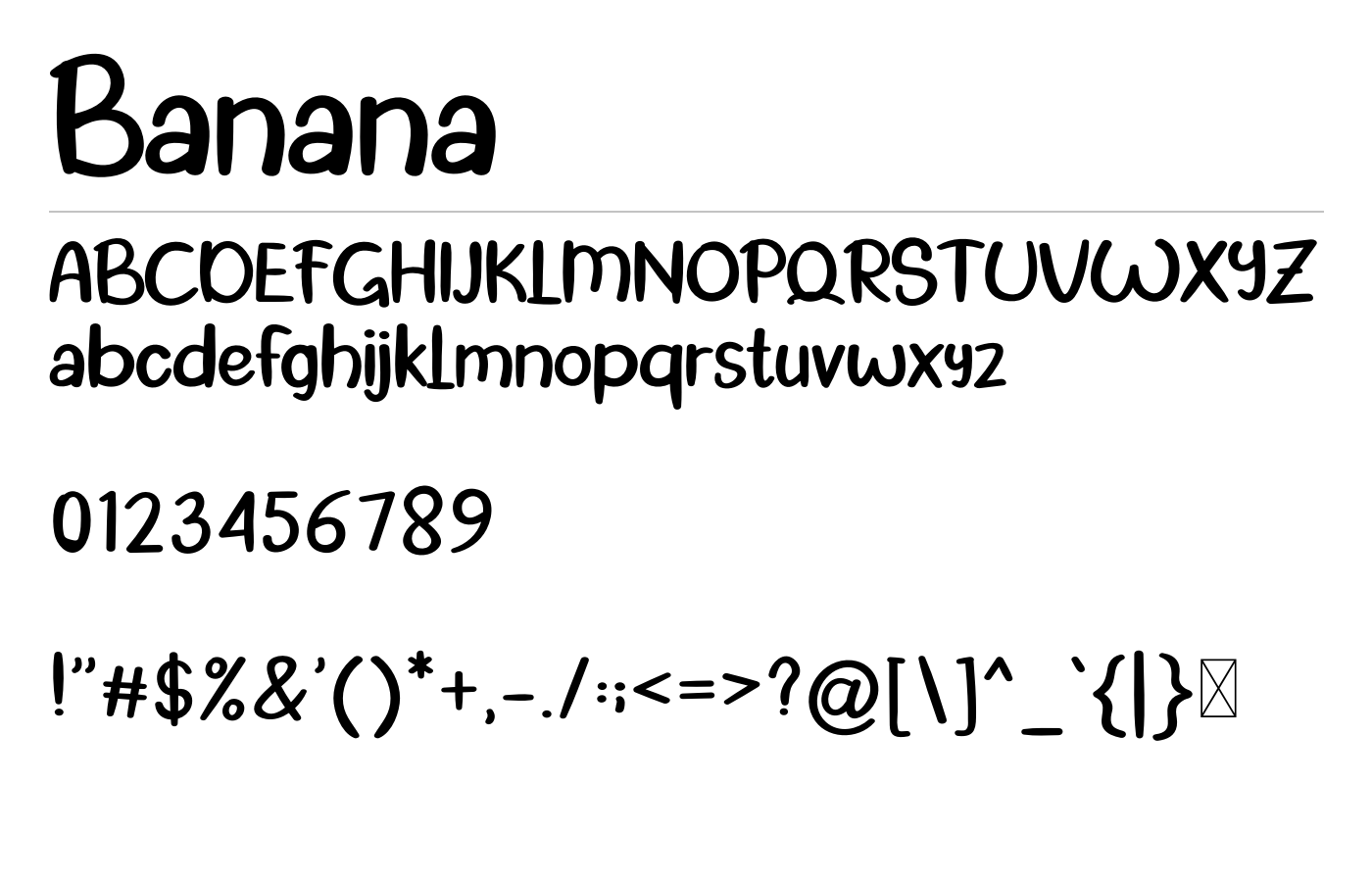
Banana Font is a casual, hand-drawn sans serif typeface with playful and rounded letterforms that give it a friendly and approachable feel. Its slightly irregular strokes and informal style make it perfect for fun, creative, and youthful branding, children's materials, and informal headlines where a warm, personal touch is desired. This font works well in designs that aim to be engaging and lighthearted without sacrificing readability.
Banana Font
About Banana Font
| Font family | Banana Font |